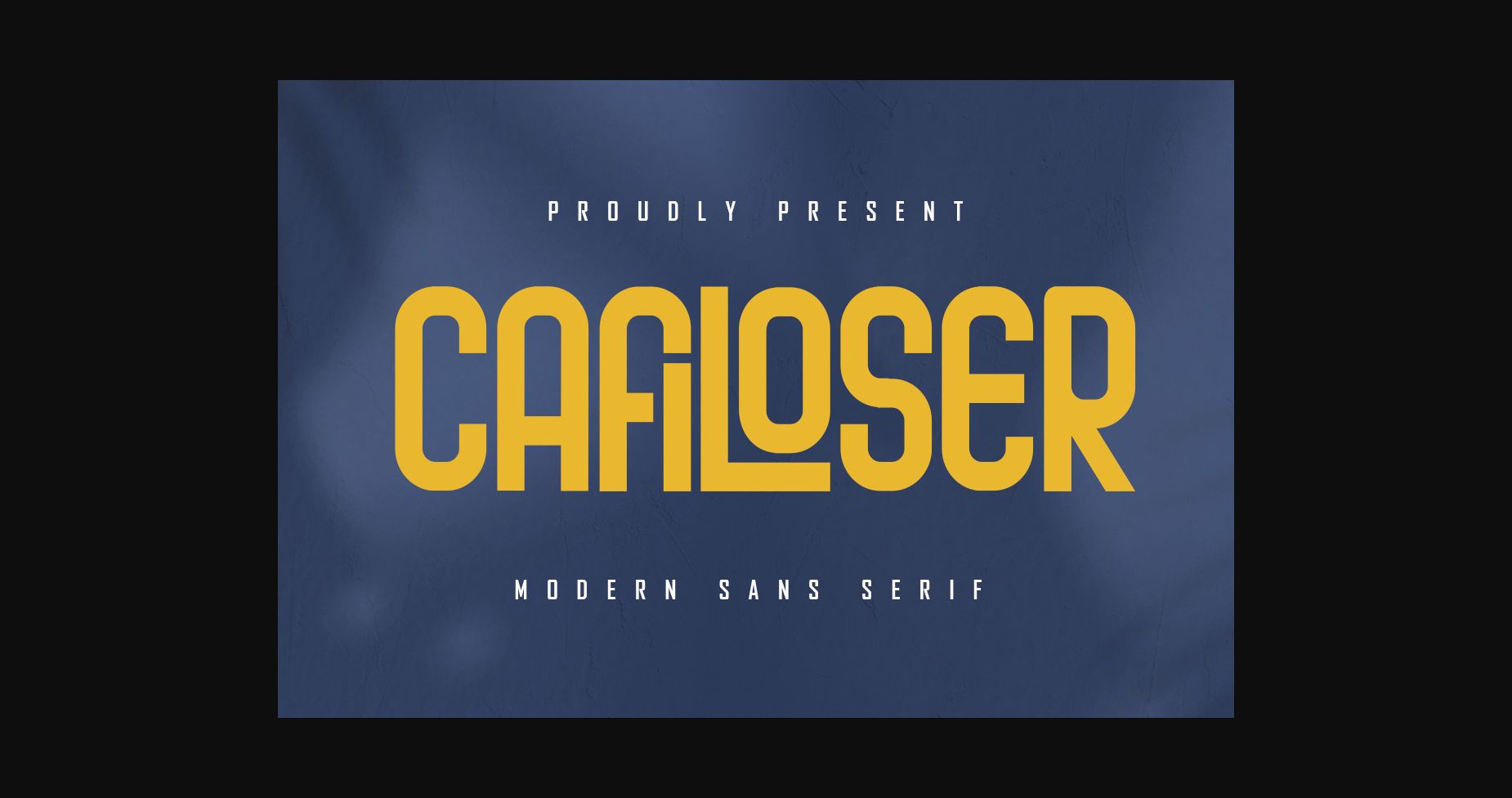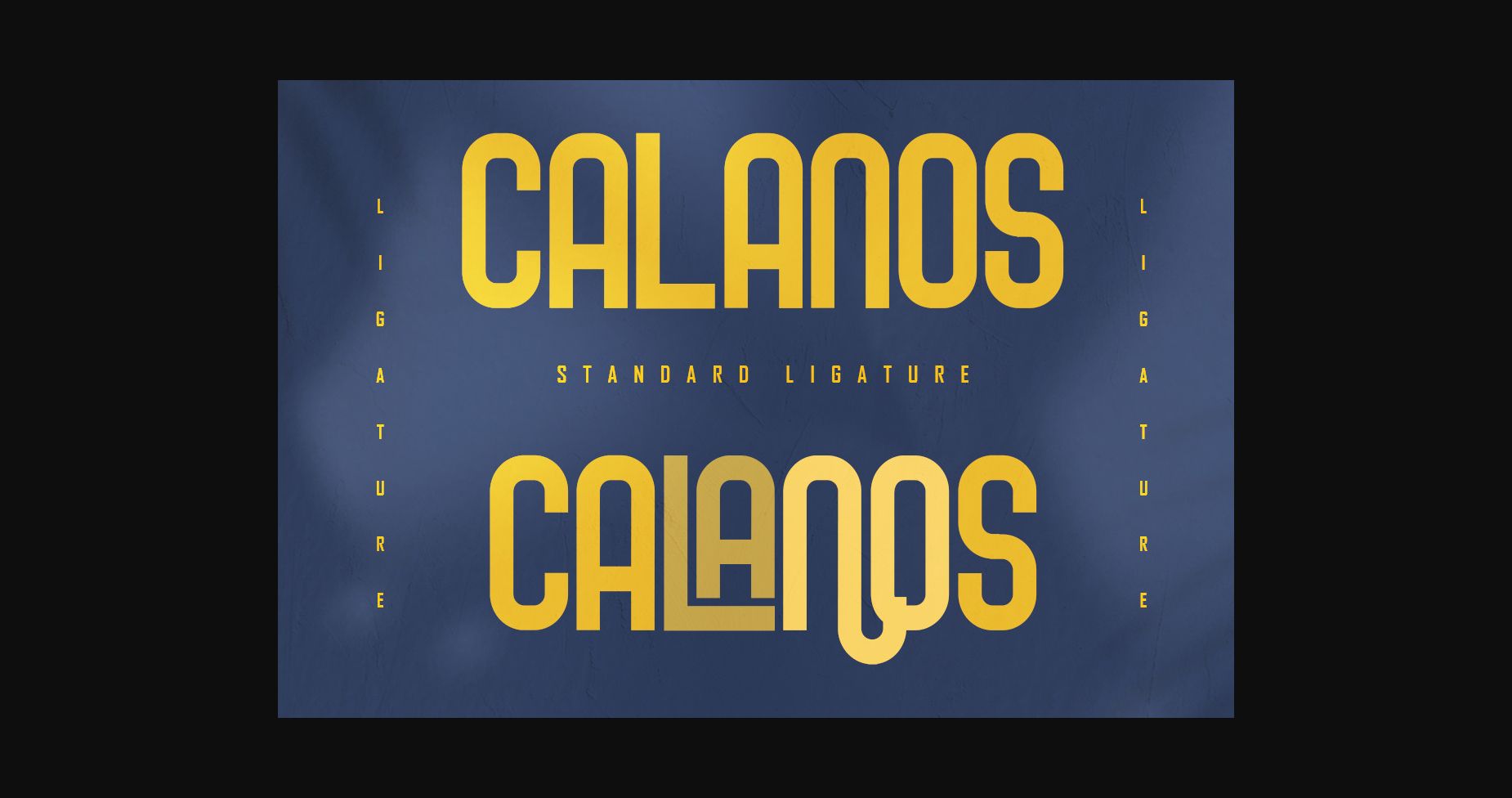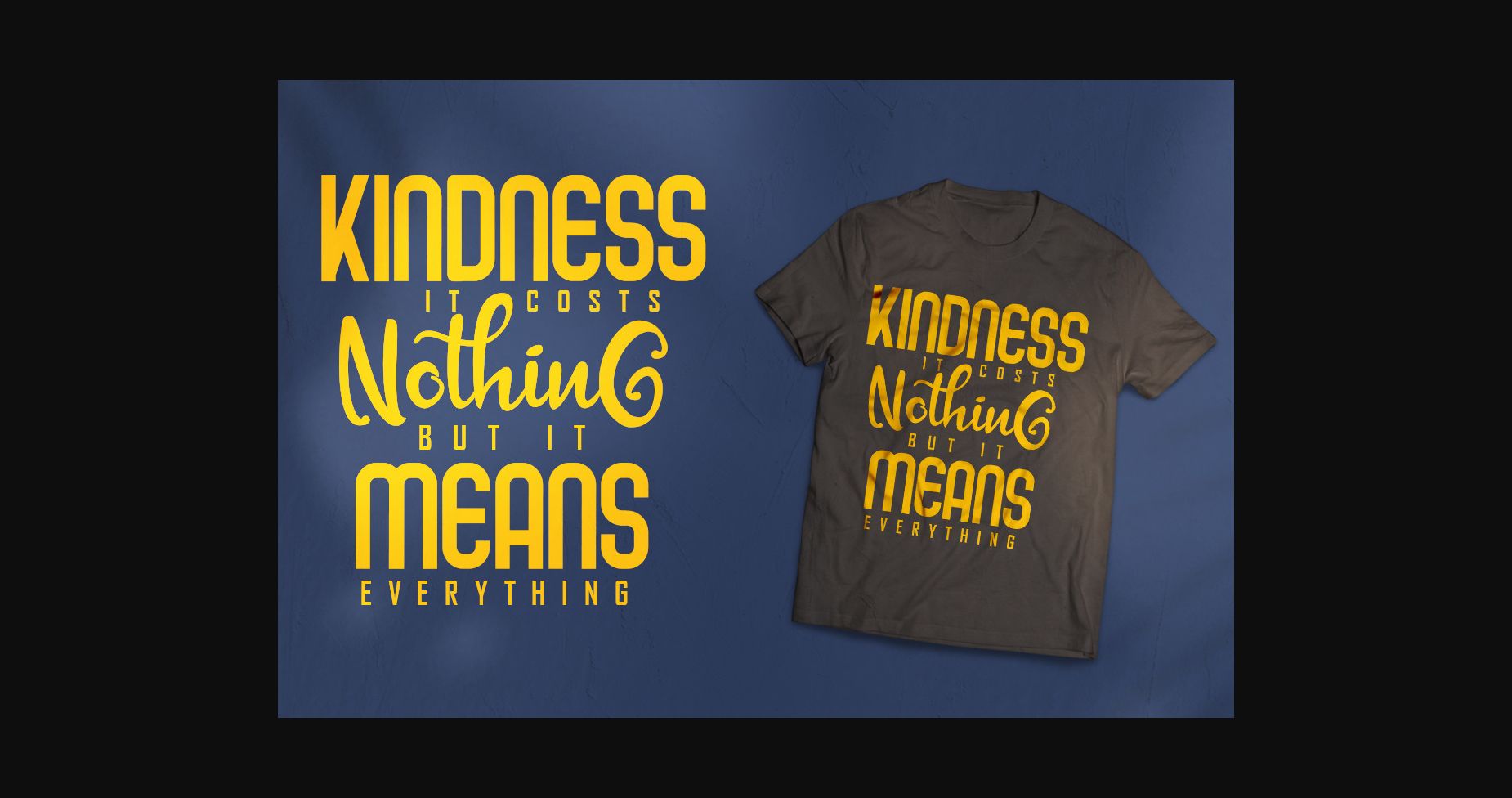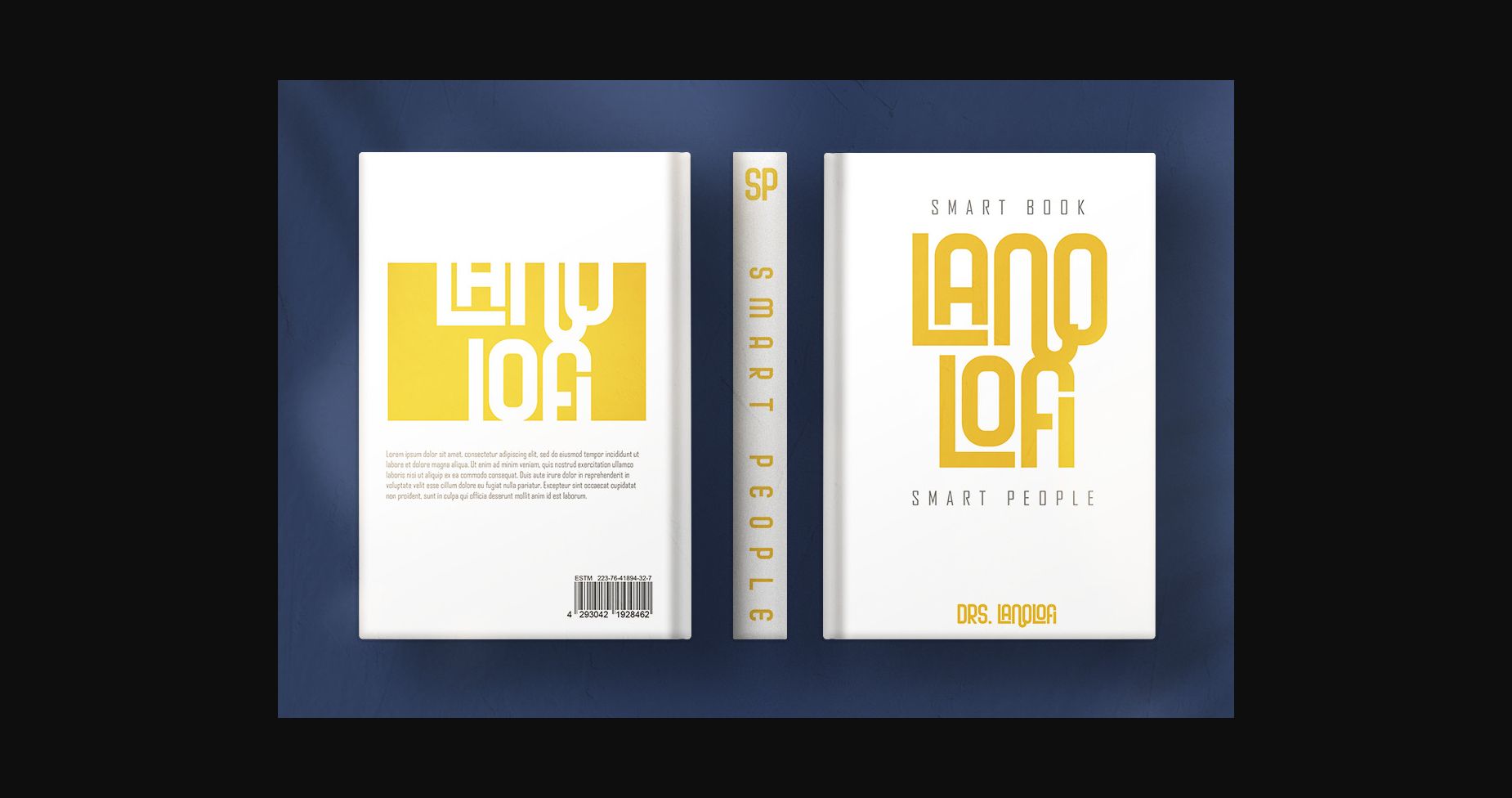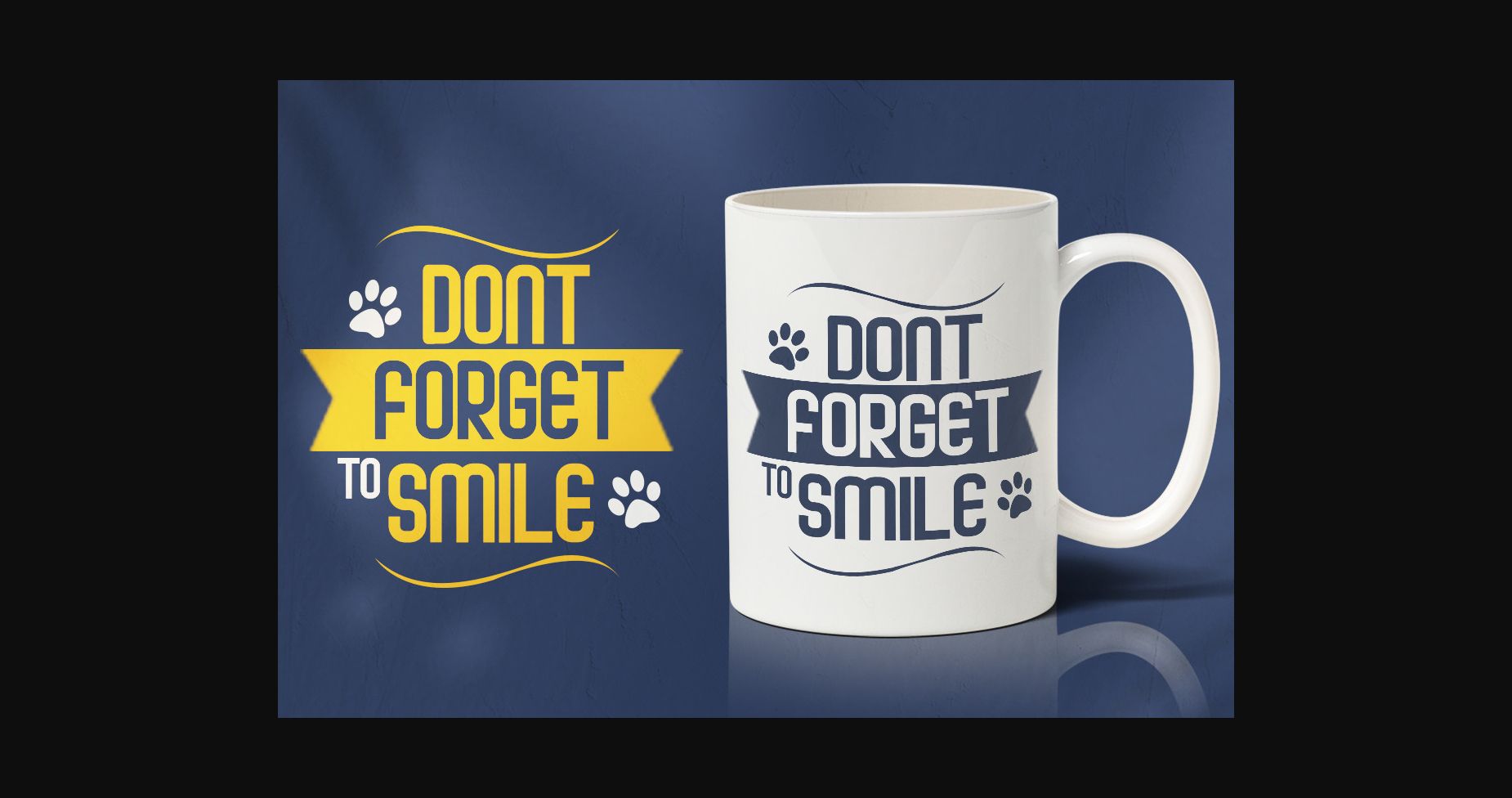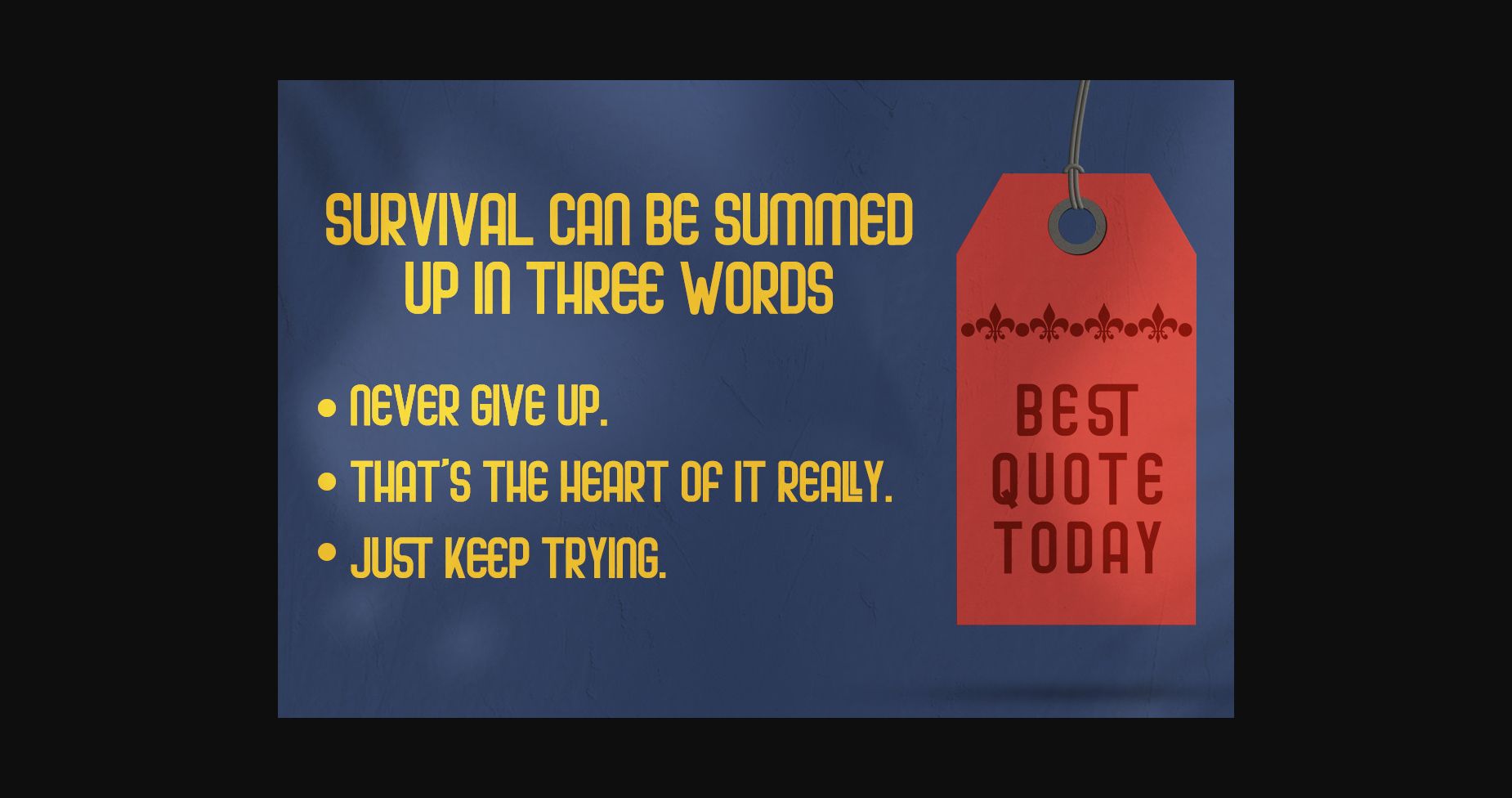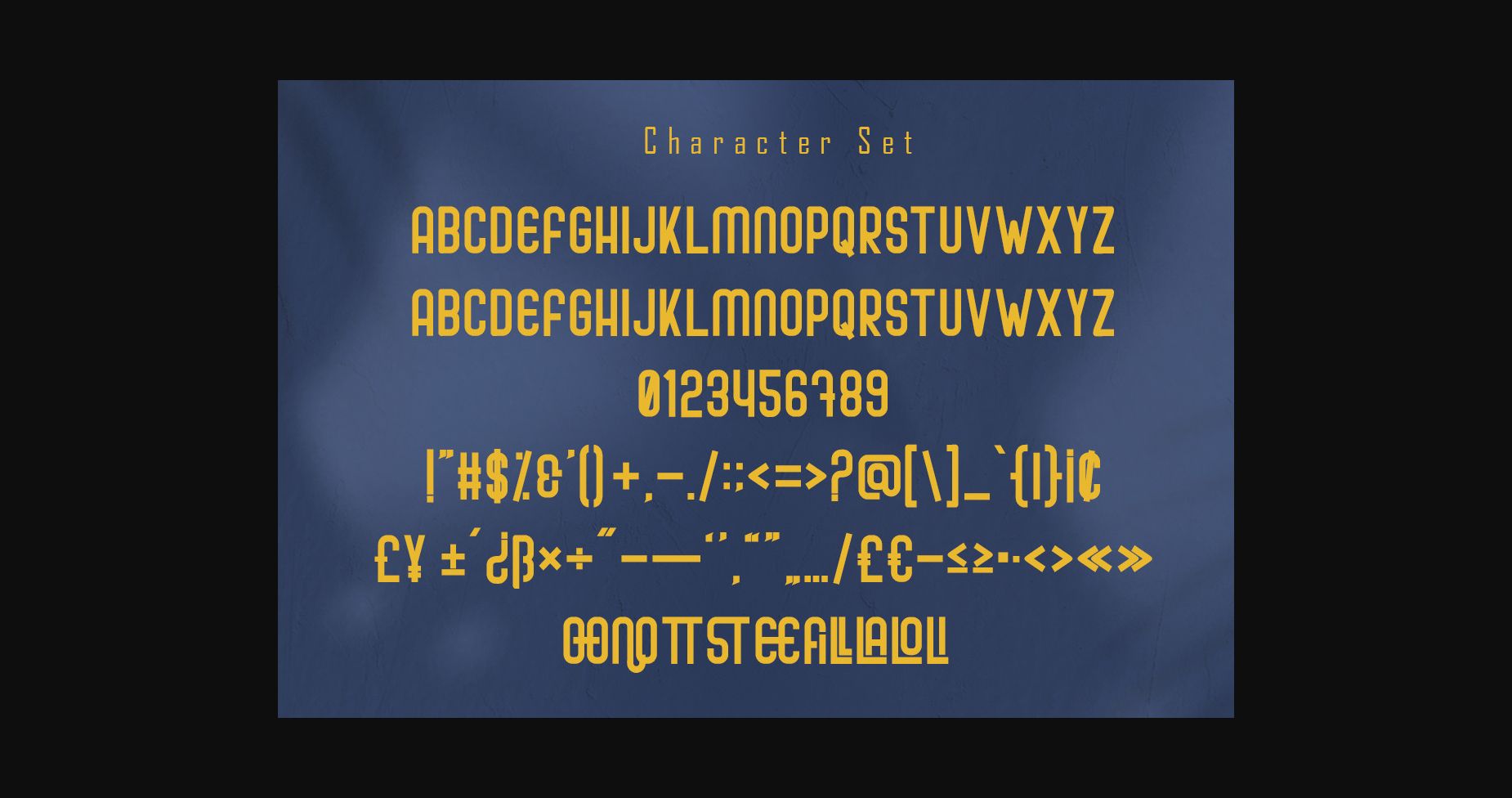
Sans Serif Fonts Cafiloser Font 0 213 FacebookTwitterPinterestWhatsApp 1 of 11 ... Cafiloser Font Poster 2... Cafiloser Font Poster 3... Cafiloser Font Poster 4... Cafiloser Font Poster 5... Cafiloser Font Poster 6... Cafiloser Font Poster 7... Cafiloser Font Poster 8... Cafiloser Font Poster 9... Cafiloser Font Poster 10... Cafiloser Font Poster 11... About Cafiloser Font Cafiloser is a modern and cool sans serif font. No matter the topic, this font will be an incredibly asset to your fonts’ library, as it has the potential to elevate any creation. DOWNLOAD NOW